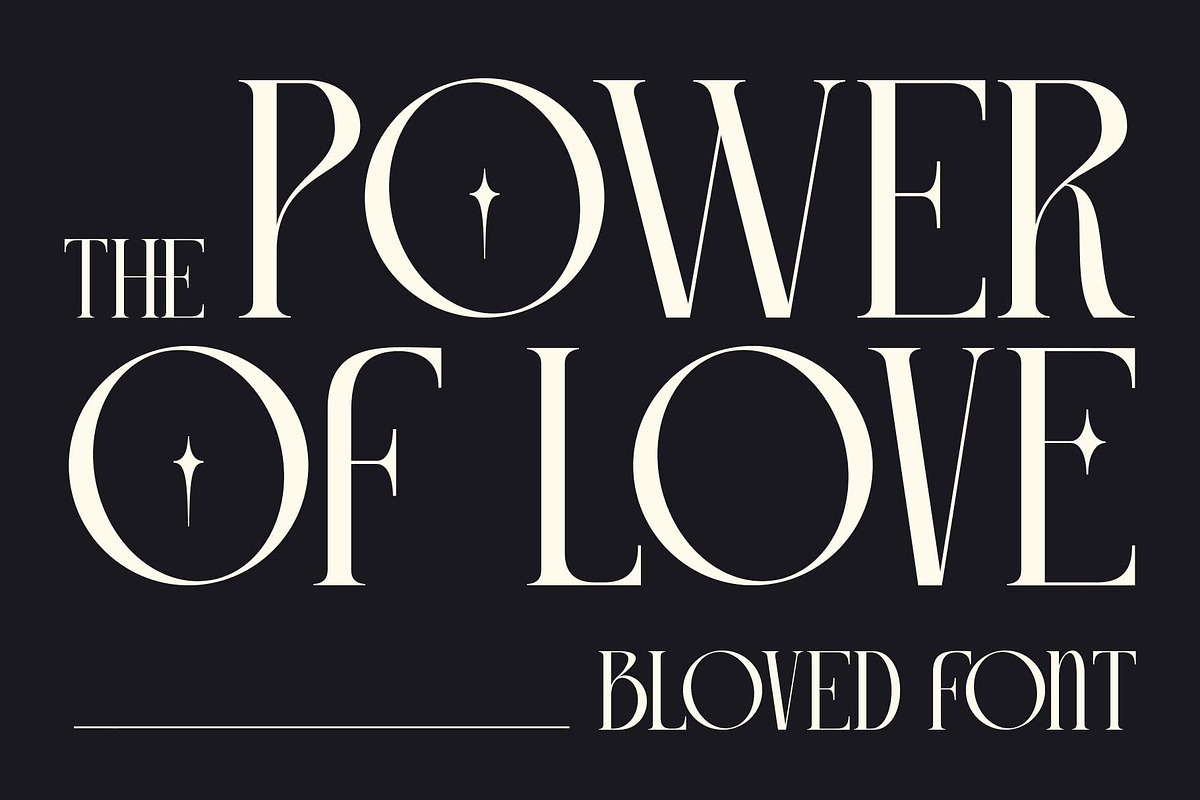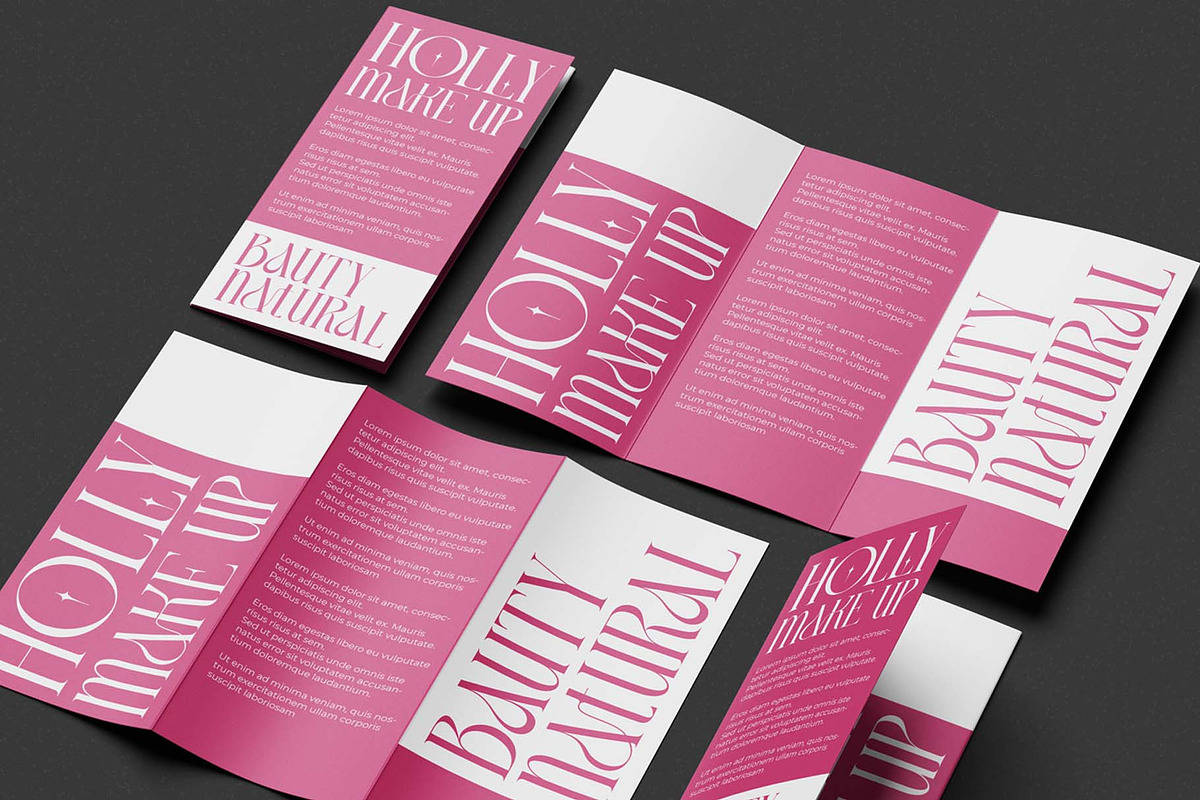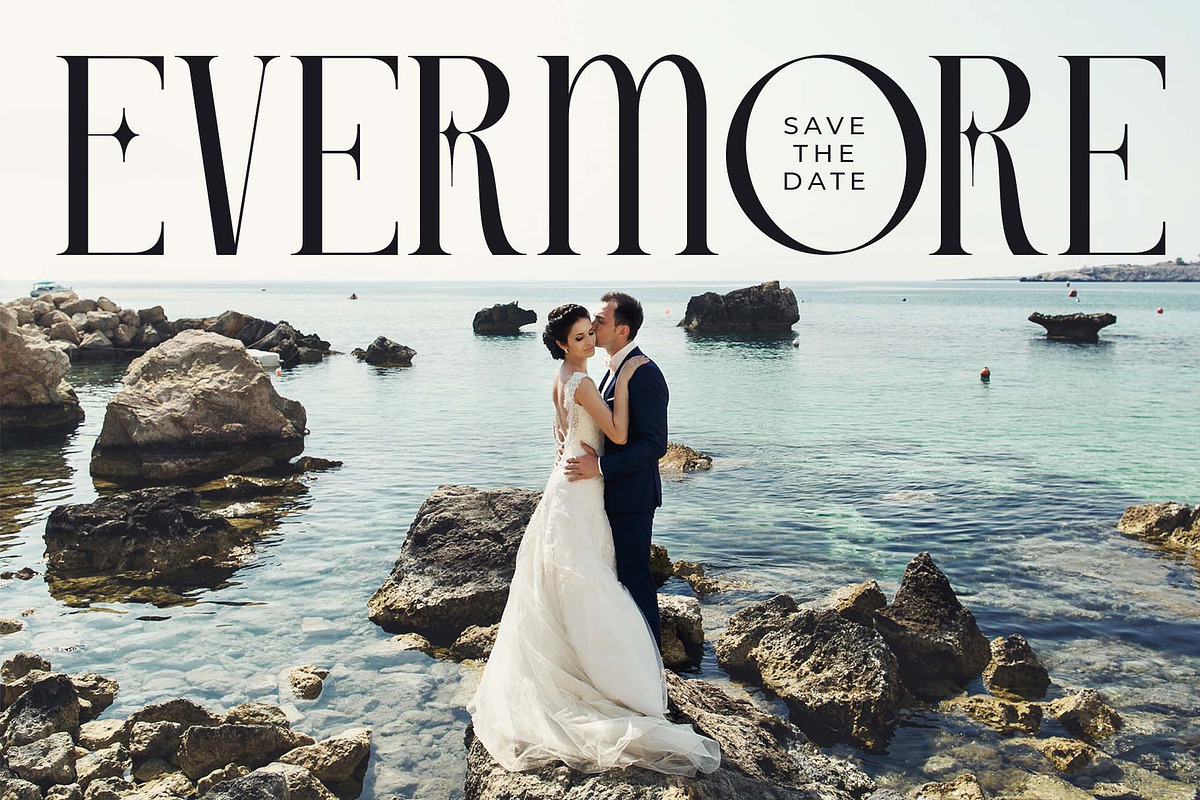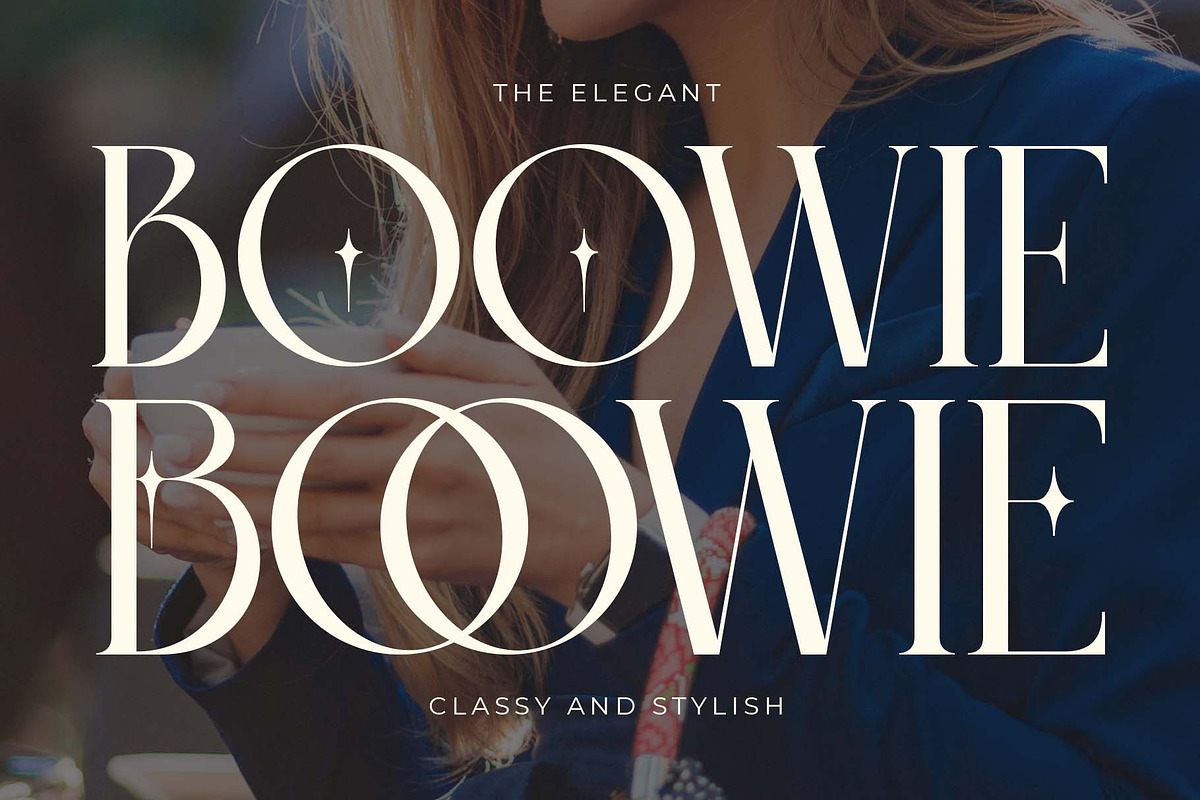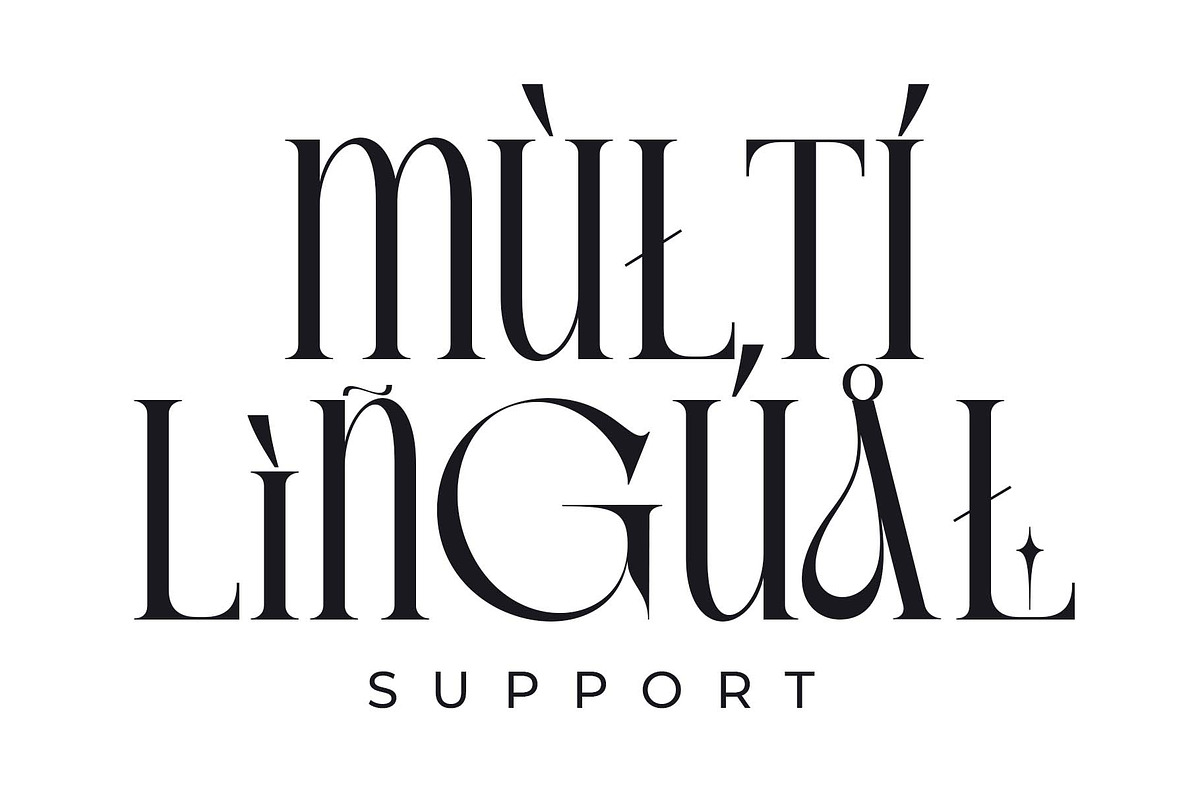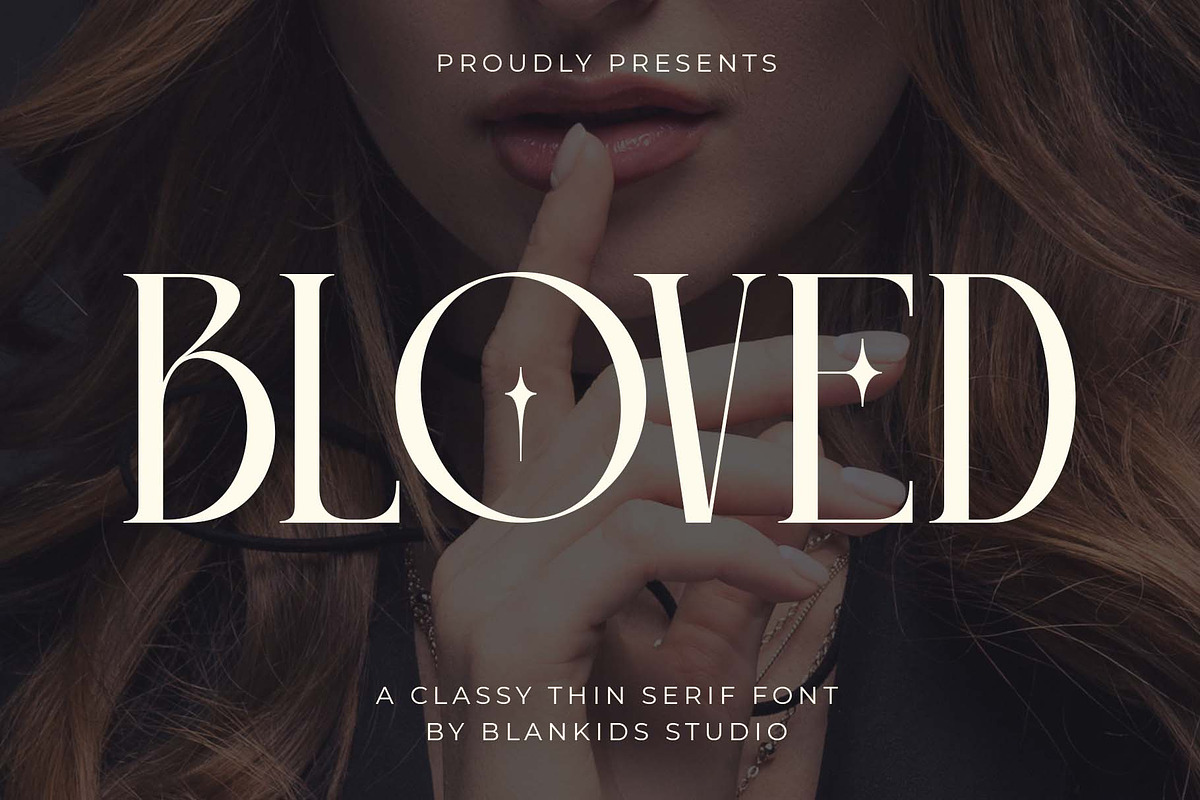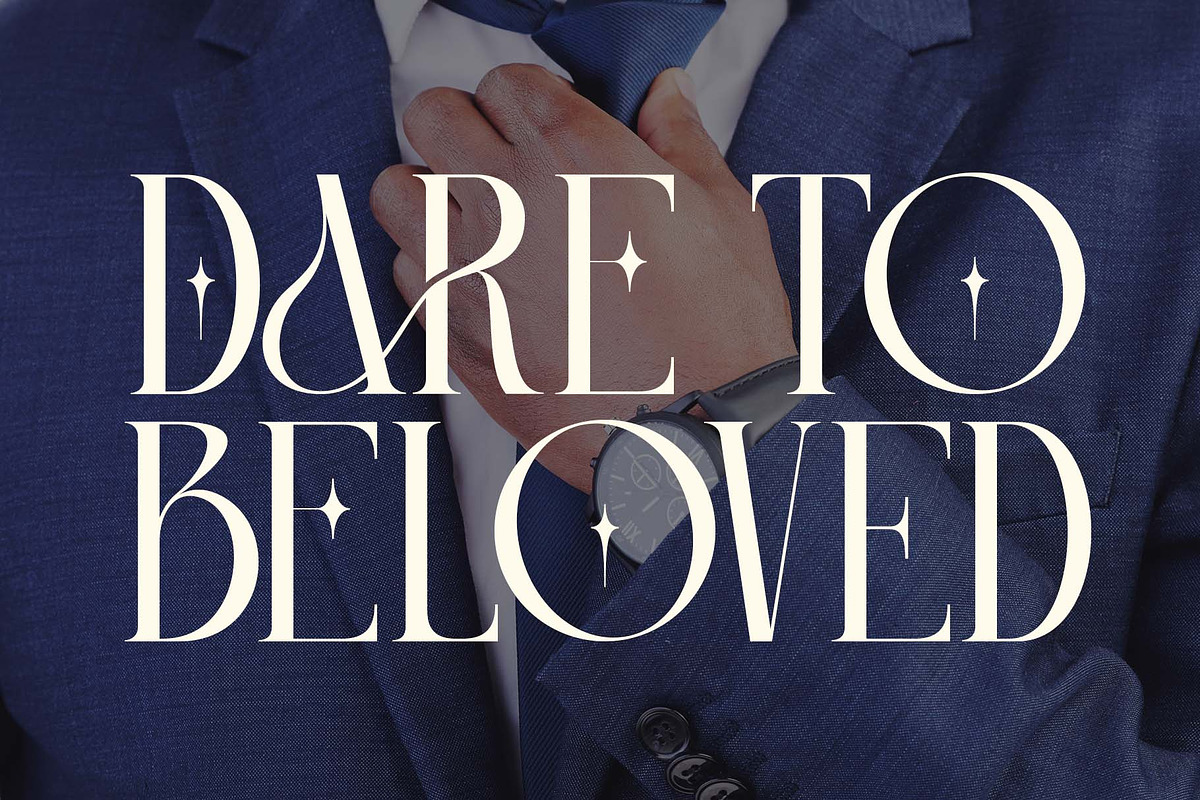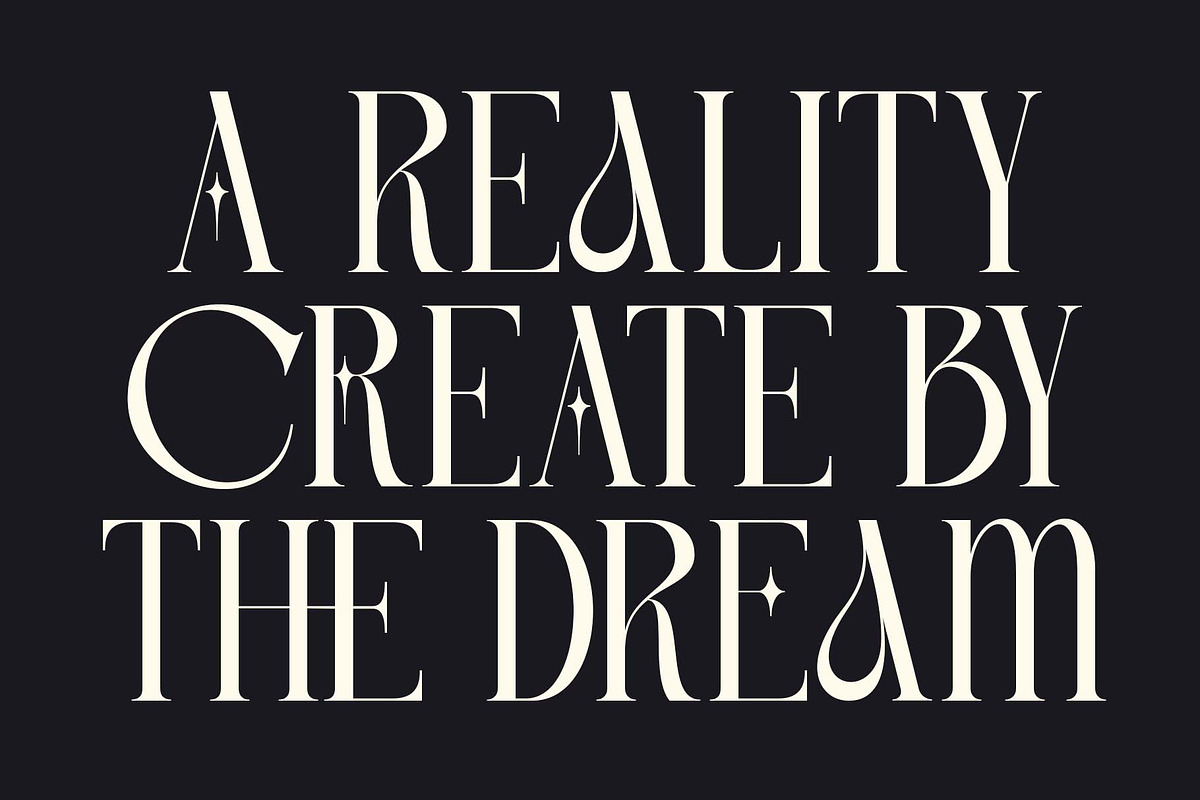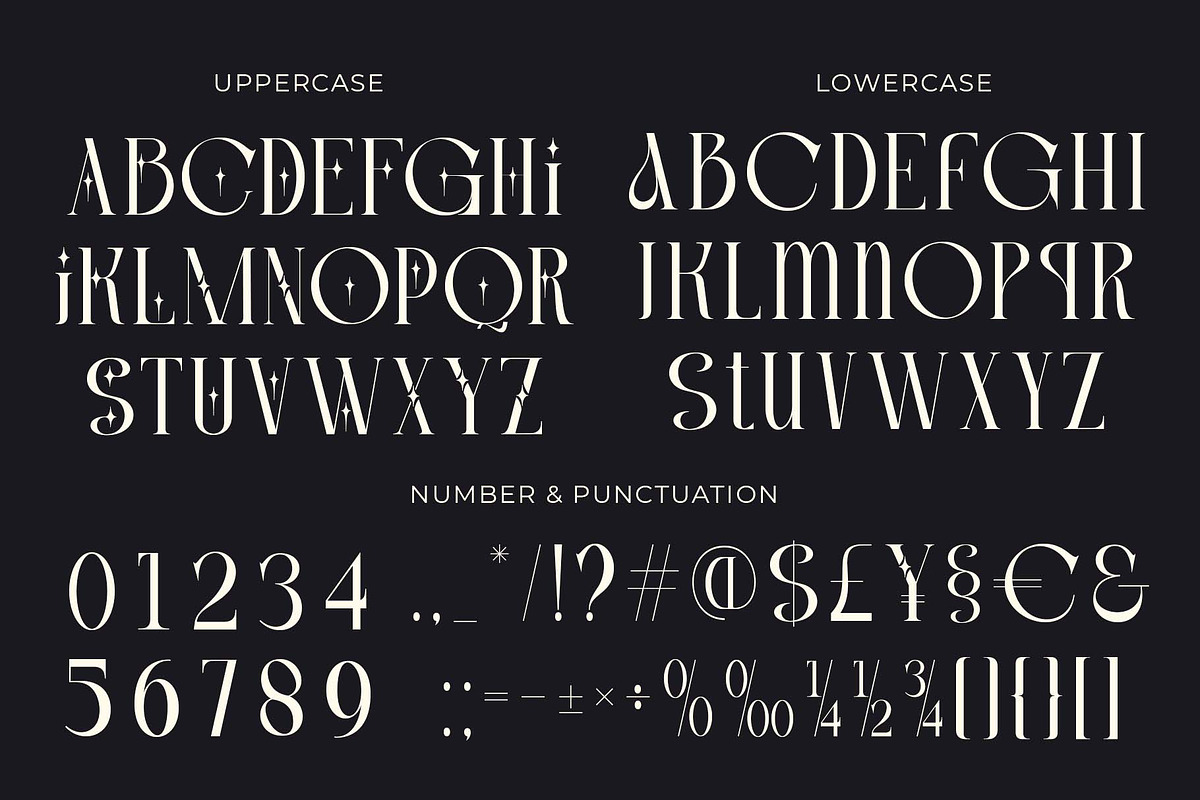
Bloved a Classy Thin Serif Font
Hello, awesome people! This time, we have a new font called Bloved a Classy Thin Serif Font by Blankids Studio.
Bloved a Classy Thin Serif Font is made for any professional project branding, such as logotype, watermarks, poster, branding, promotions, product packaging, etc. Every letter has a classy style design. This font comes in Otf. and Ttf. files.
Bloved font includes a full set of classy uppercase and lowercase letters, numerals and punctuation. This font has a classy style. See the previews above to get some inspiration on how to use them. Happy designing!